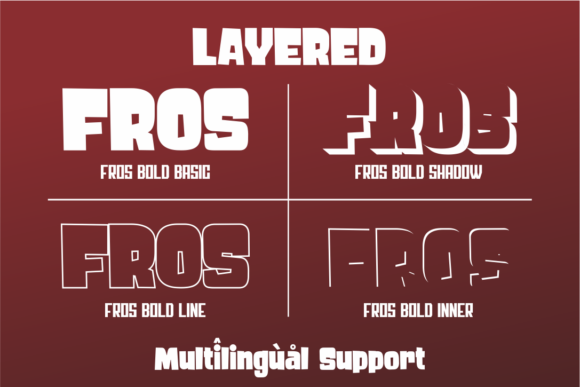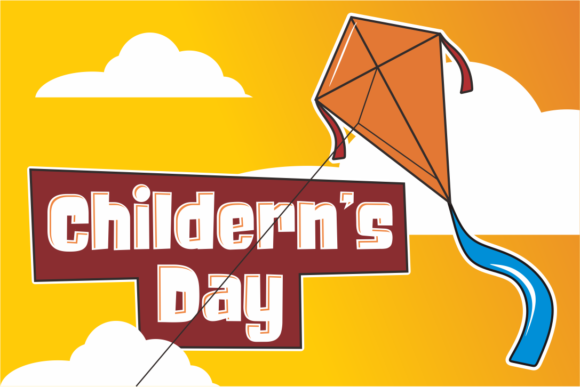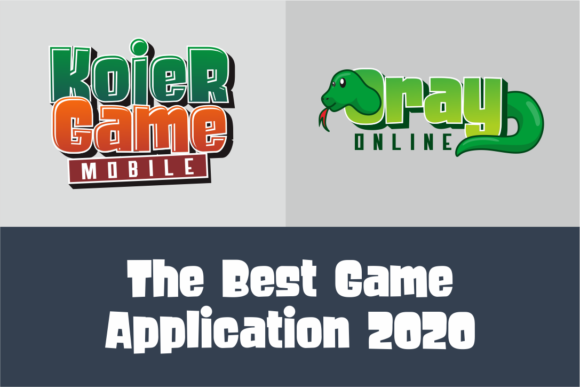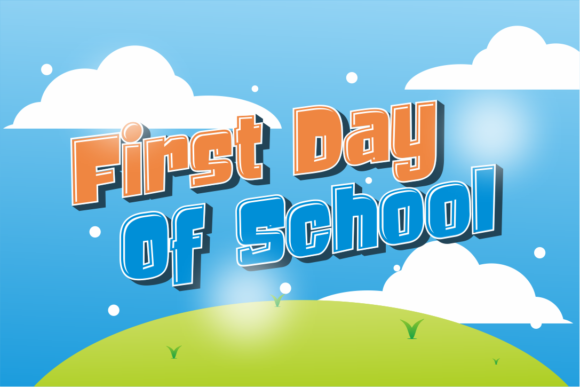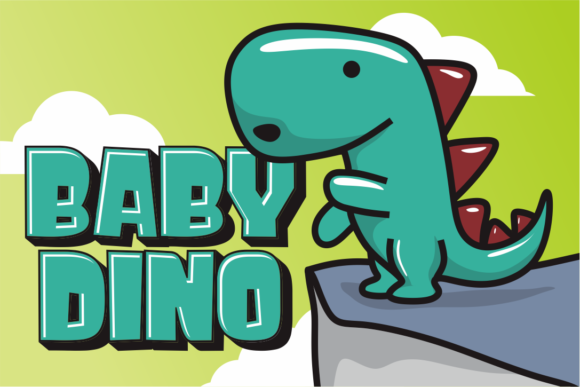
Fros Bold Font: The Ultimate Display Font for Creative Projects
Are you tired of using the same old fonts for your creative projects? Look no further! Fros Bold Font is here to add a touch of fun and uniqueness to your designs. This bold and playful display font is perfect for game logos, event titles, animal names, movie titles, and so much more. In this article, we’ll dive into the world of Fros Bold Font and explore its features, uses, and benefits for designers and crafters.
What is Fros Bold Font?
Fros Bold Font is a distinctive and humorous display font designed to make your text stand out. Its bold and playful style is sure to grab attention and add a touch of personality to your designs. Whether you’re creating a logo, title, or heading, Fros Bold Font is the perfect choice for adding a dash of fun and whimsy.
Key Features of Fros Bold Font
- Unique and Playful Style: Fros Bold Font boasts a one-of-a-kind design that’s sure to make your text stand out from the crowd.
- Bold and Attention-Grabbing: The font’s bold style ensures that your text will grab attention and make a lasting impression.
- Versatile: Fros Bold Font is suitable for a wide range of creative projects, from game logos and event titles to animal names and movie titles.
- Easy to Read: Despite its bold style, Fros Bold Font is easy to read, making it perfect for use in titles, headings, and other applications where readability is key.
Uses of Fros Bold Font
Fros Bold Font is an incredibly versatile font that can be used in a variety of creative projects. Here are some ideas to get you started:
- Game Logos: Add a touch of fun and personality to your game logos with Fros Bold Font.
- Event Titles: Make your event titles stand out with Fros Bold Font’s bold and playful style.
- Animal Names: Use Fros Bold Font to add a touch of whimsy to animal names in children’s books, zoos, or wildlife organizations.
- Movie Titles: Add a dash of fun and personality to your movie titles with Fros Bold Font.
- Social Media Graphics: Use Fros Bold Font to create eye-catching social media graphics that will grab attention and make your content stand out.
Benefits of Using Fros Bold Font
So why choose Fros Bold Font for your creative projects? Here are just a few benefits of using this unique and playful font:
- Stand Out from the Crowd: Fros Bold Font’s unique style ensures that your text will stand out from the crowd and grab attention.
- Add Personality to Your Designs: With Fros Bold Font, you can add a touch of fun and personality to your designs and make them more engaging.
- Save Time: Fros Bold Font is easy to read and understand, saving you time and effort in creating effective designs.
- Increase Engagement: The bold and playful style of Fros Bold Font can help increase engagement and make your content more shareable.
Tips for Using Fros Bold Font
Here are some tips for getting the most out of Fros Bold Font:
- Use it Sparingly: While Fros Bold Font is bold and attention-grabbing, it’s best to use it sparingly to avoid overwhelming your designs.
- Pair it with Other Fonts: Experiment with pairing Fros Bold Font with other fonts to create visually appealing combinations.
- Experiment with Colors: Try out different colors and color combinations to see what works best with Fros Bold Font.
Fros Bold Font is a unique and playful display font that’s perfect for adding a touch of fun and personality to your creative projects. With its bold and attention-grabbing style, versatility, and ease of use, Fros Bold Font is an excellent choice for designers and crafters looking to make their text stand out. Whether you’re creating game logos, event titles, animal names, movie titles, or social media graphics, Fros Bold Font is sure to help you achieve your design goals.